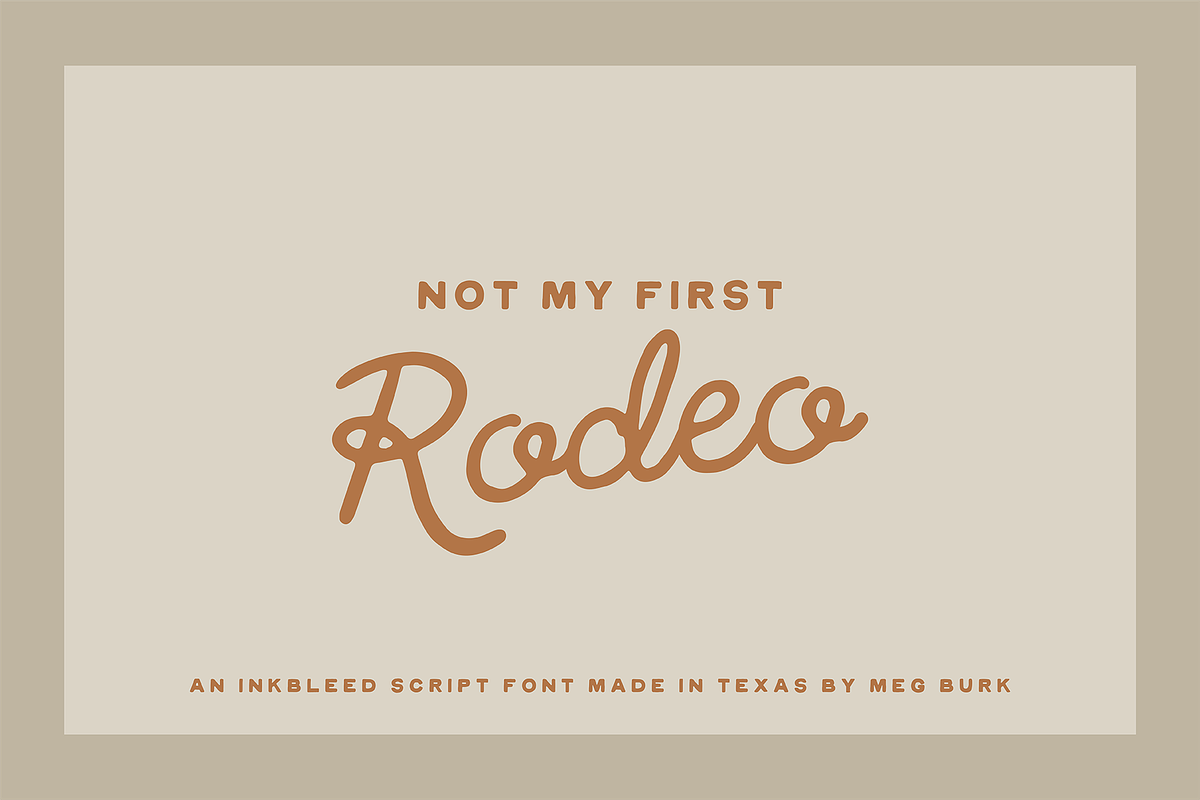
Rodeo / Imperfect Script
Imperfect edges give this hand made font a rugged and vintage feel. Featuring tt and gh ligatures, this font will be fun to use. It is inspired because I turned some ink lettering into vectors and the rough edges made for a lovely feel. Enjoy.